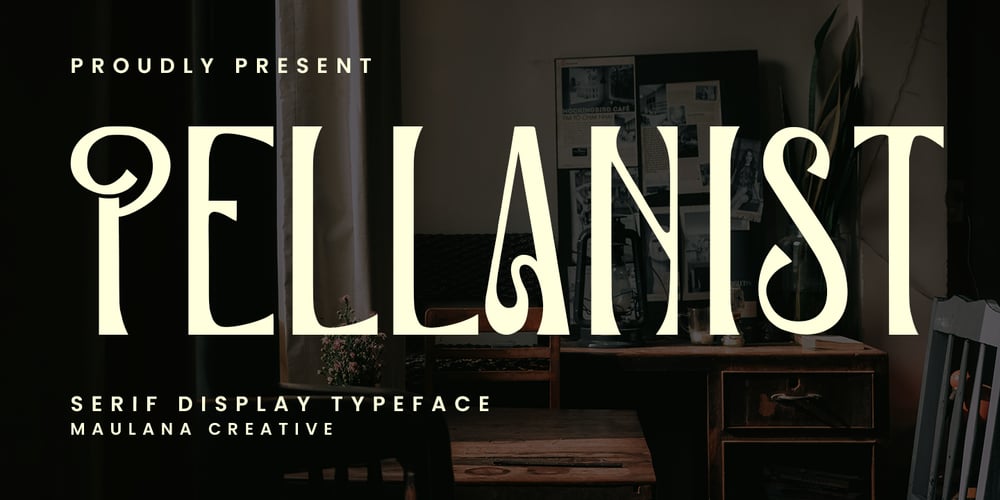
MC Pellanist Font Family was designed by Gilang Maulana and published by Maulana Creative. MC Pellanist contains 1 styles and family package options. Pellanist is a modern High Contrast Condensed Serif display font. Bold stroke, fun character with a bit of ligatures and stylistic. To give you an extra creative work. Pellanist font support multilingual more than 100+ language. This font is good for logo design, Social media, Movie Titles, Books Titles, a short text even a long text letter and good for your secondary text font with script or serif. Make a stunning work with Pellanist font. Cheers, Maulana Creative